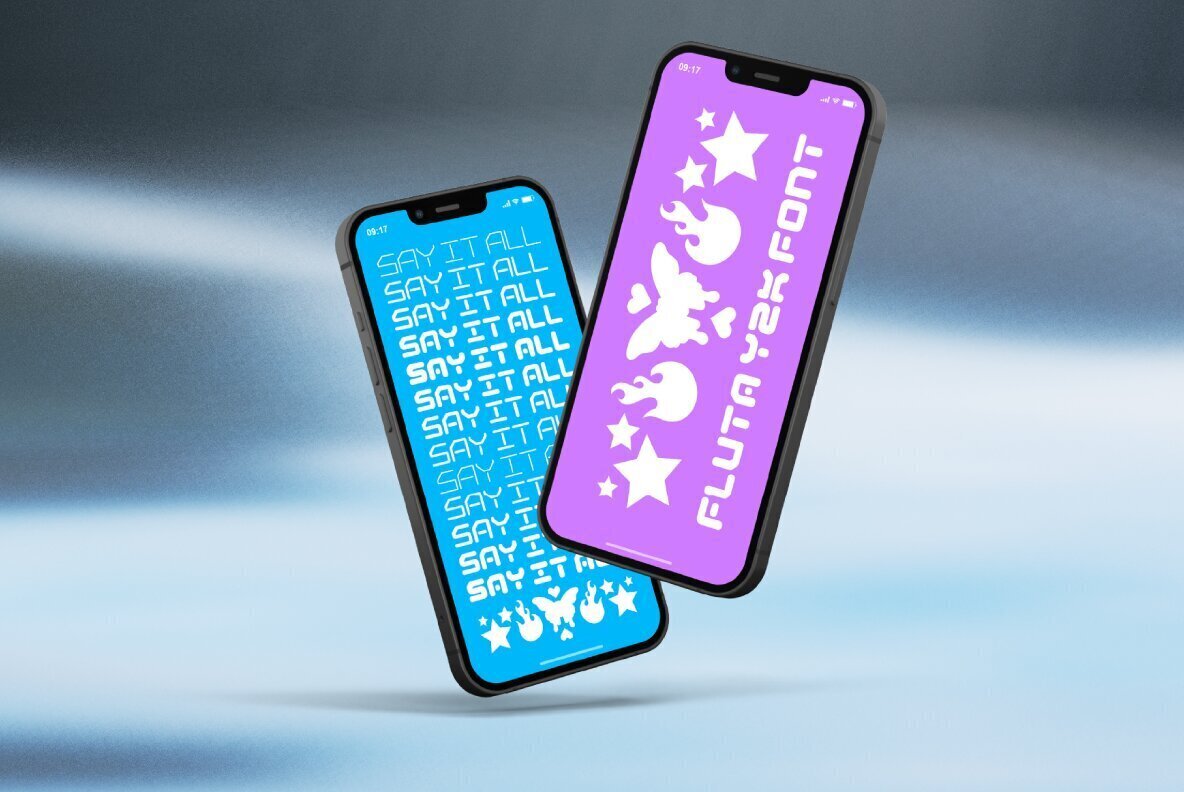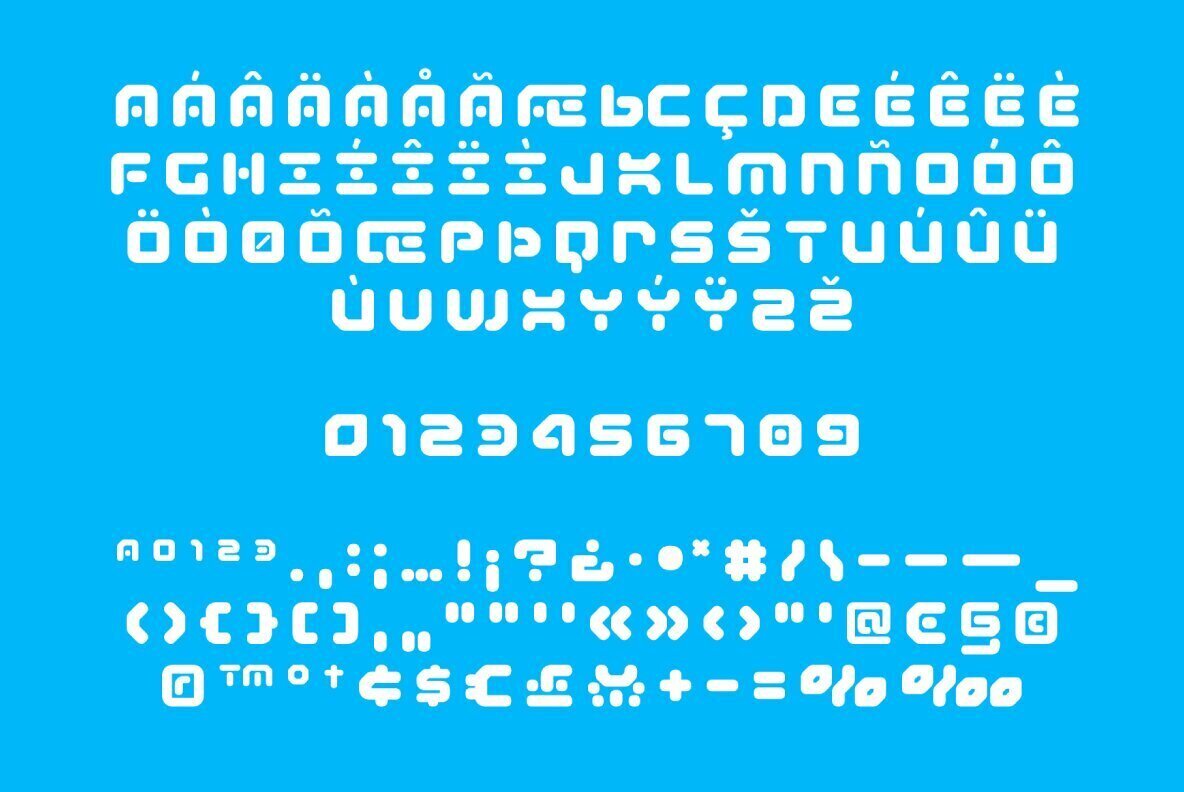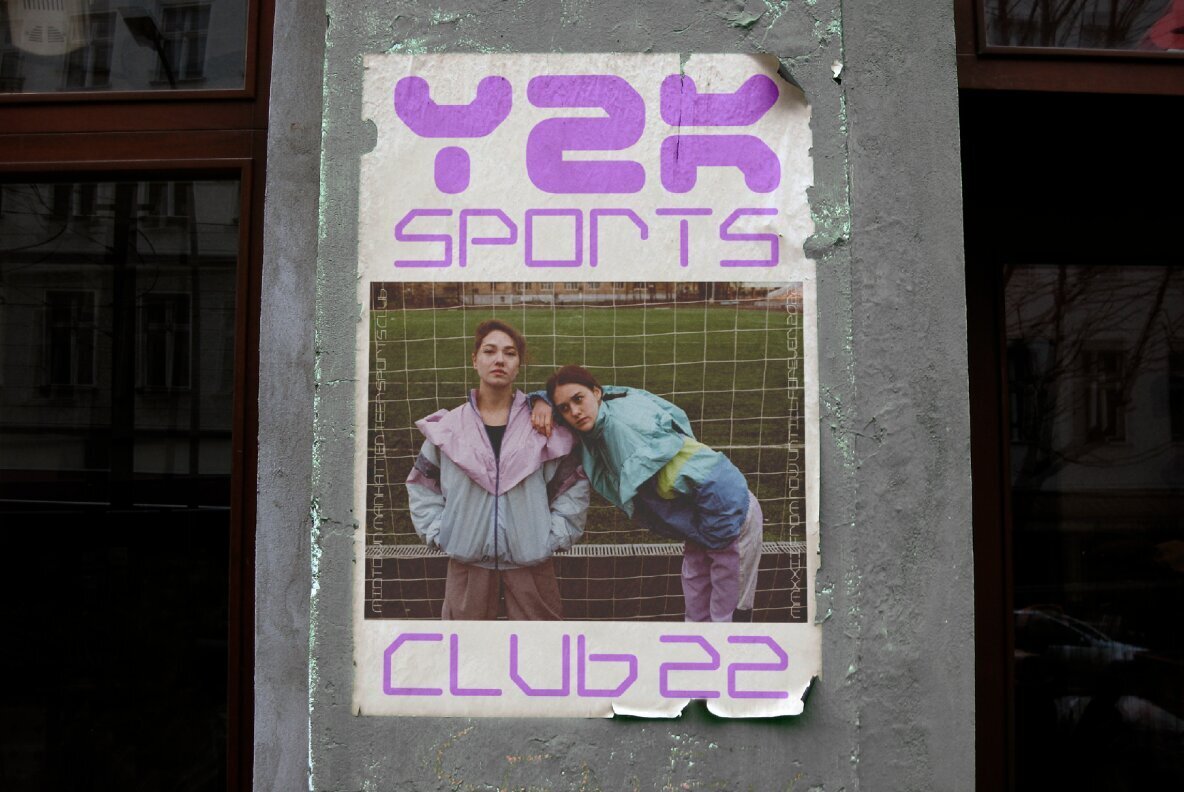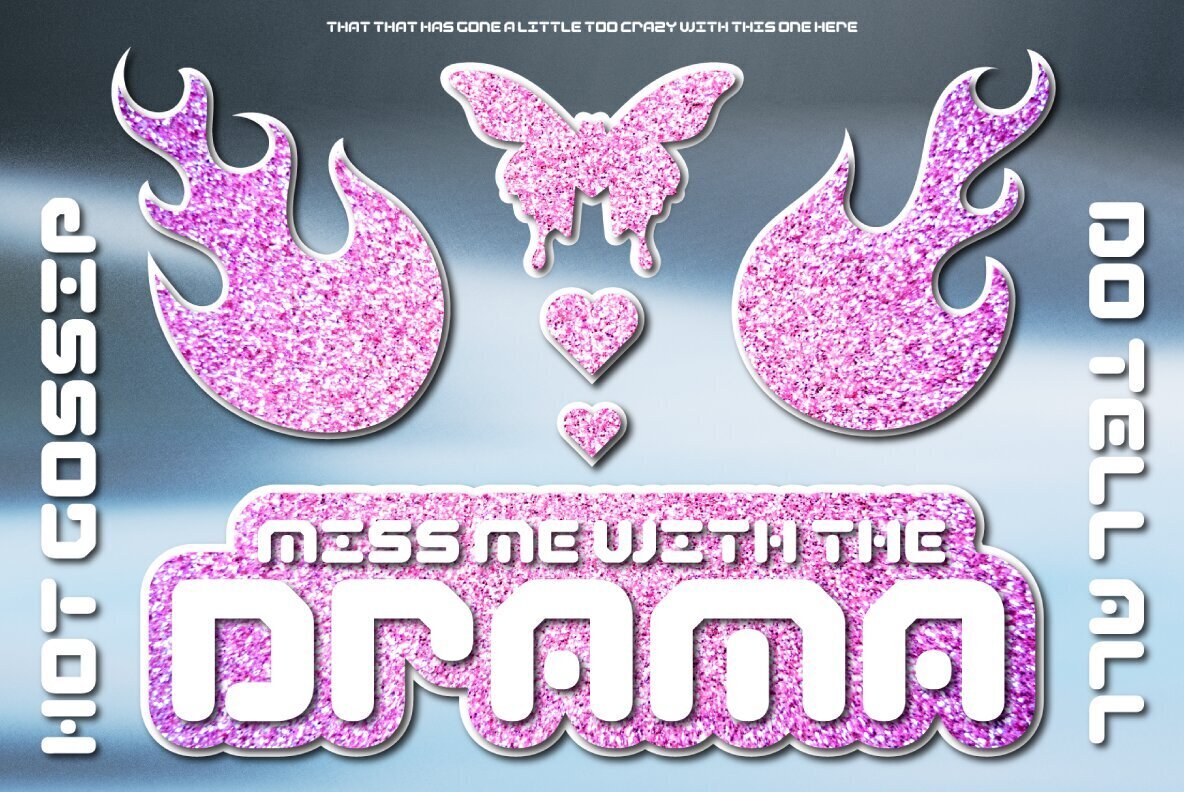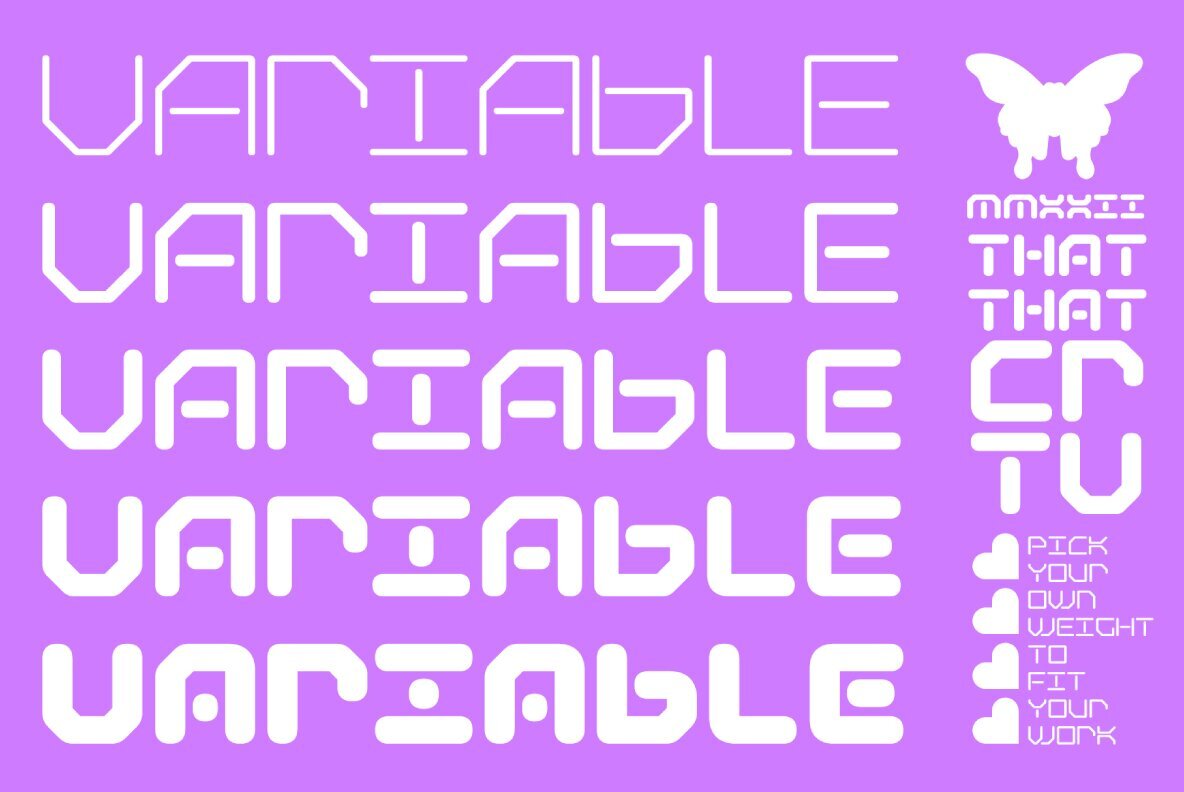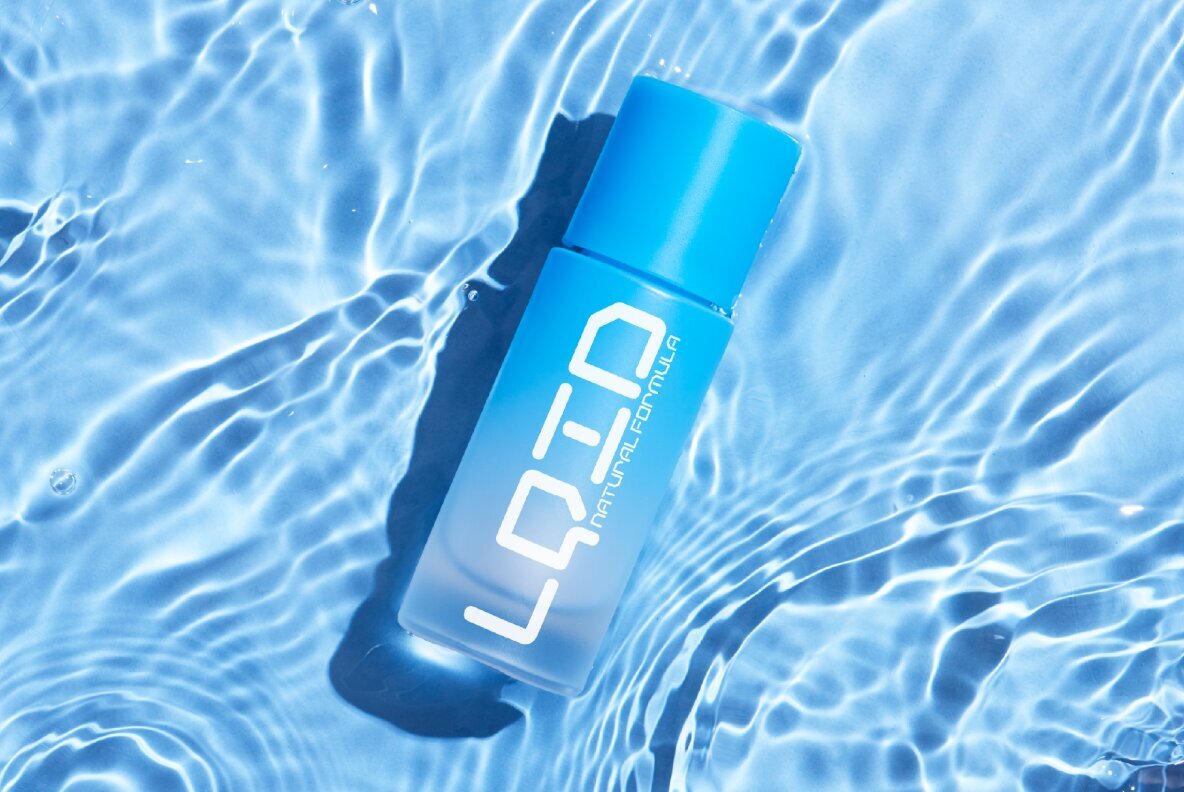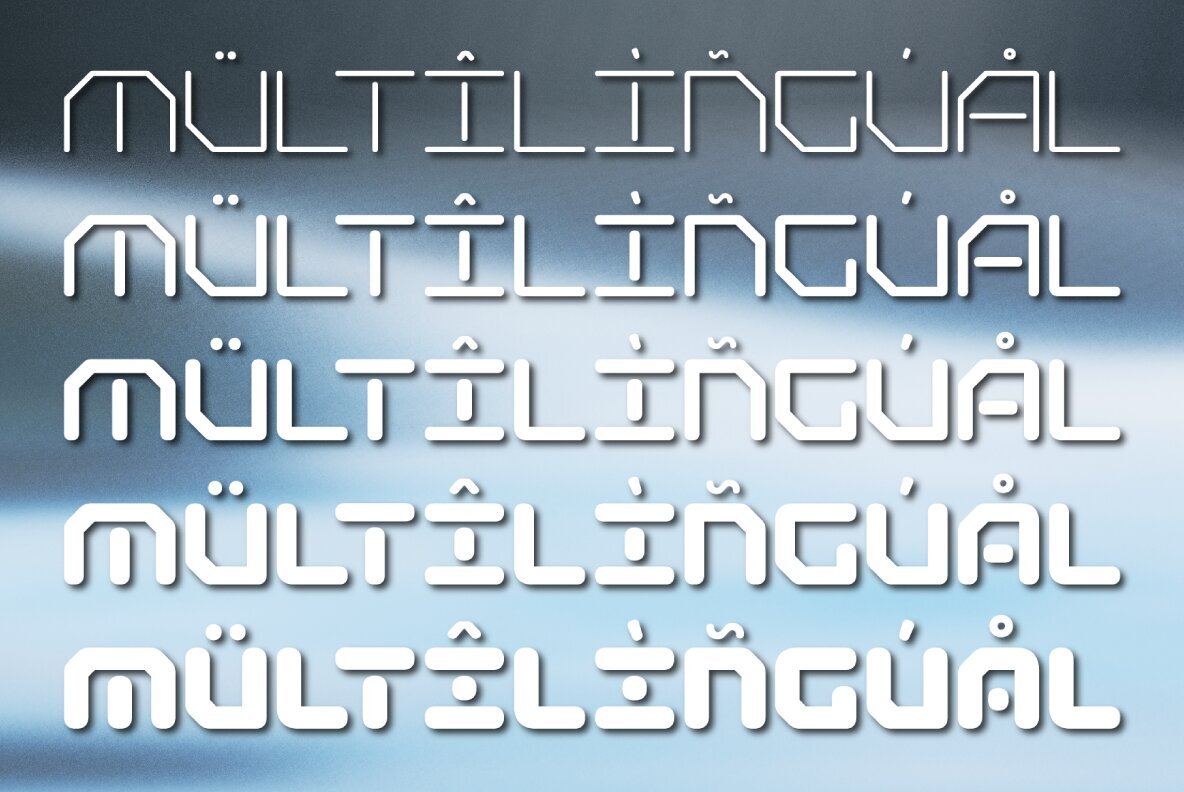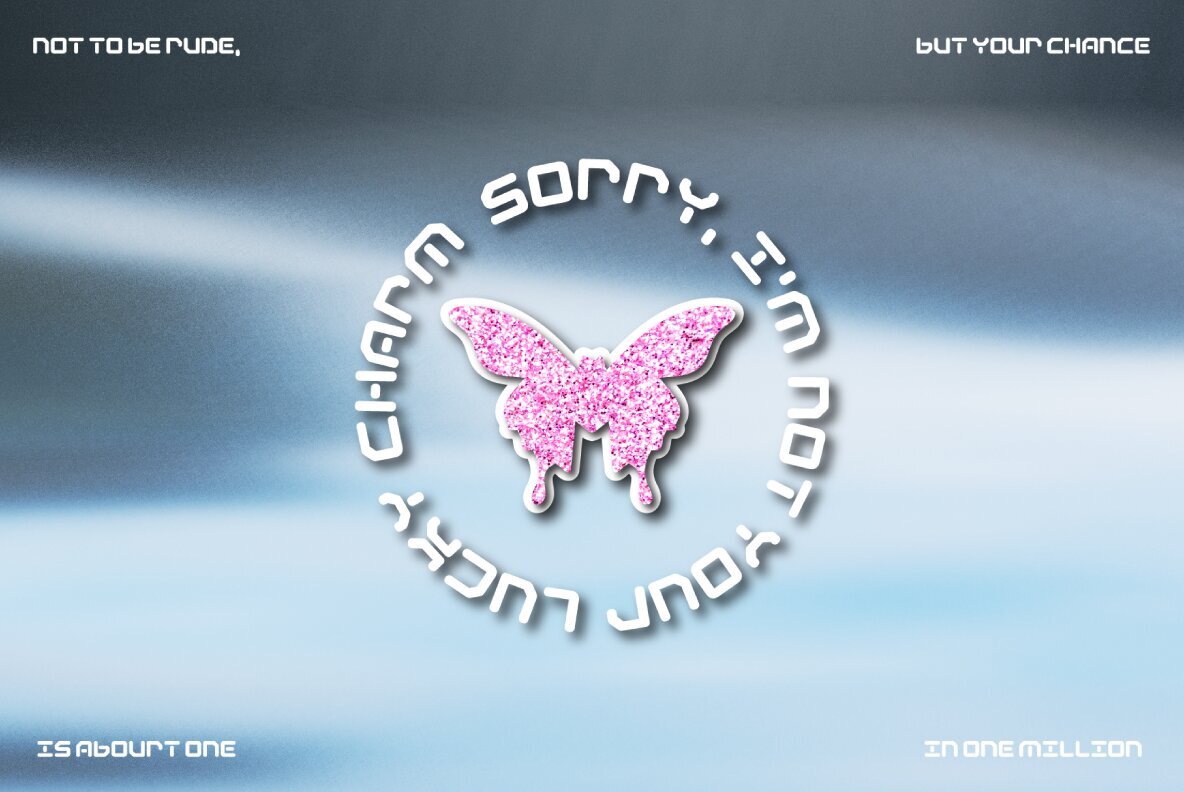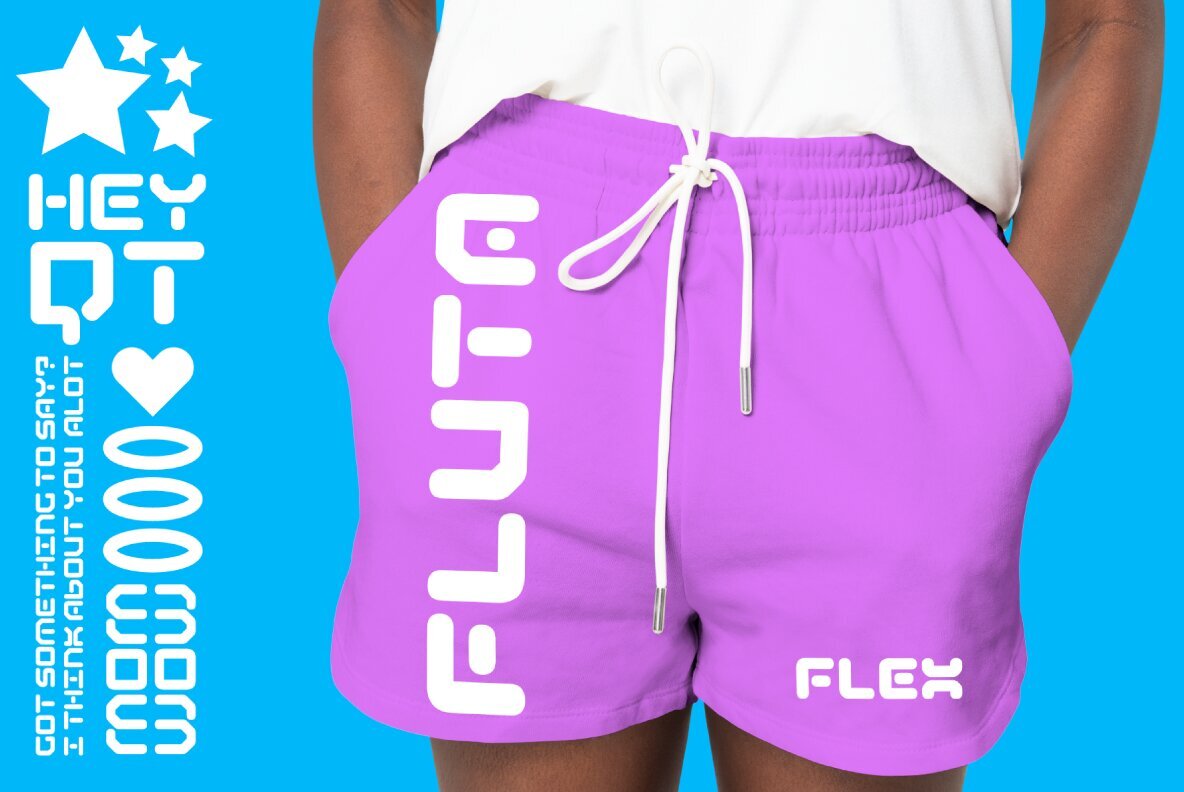
Fluta Font
Fluta is a variable weight font that is inspired by the digital bubble gum pop aesthetics of Y2K. Fluta Comes is 5 styles. This font adds a modern take on the retro 2000's look. It is perfect for logos, editorial, magazines, posters, branding, Instagram, social media, and whatever else you are looking to make.